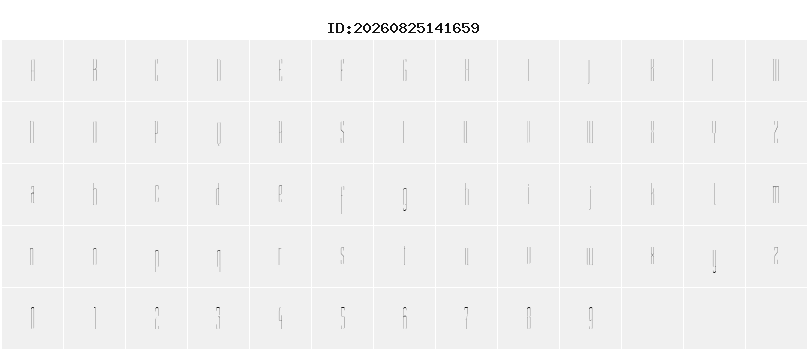
ST Moviehead Preview
• Font Name: ST Moviehead
• Font Style: Ultra-condensed UltraLight
• Full Font Name: ST Moviehead Ultra-condensed UltraLight
• Designer: Sascha Timplan
• Manufacturer: Sascha Timplan
About ST Moviehead.ttf
ST Moviehead.ttf is a modern, elegant sans-serif font designed for ultimate readability and visual harmony. Perfect for branding, headlines, web design, and print materials.